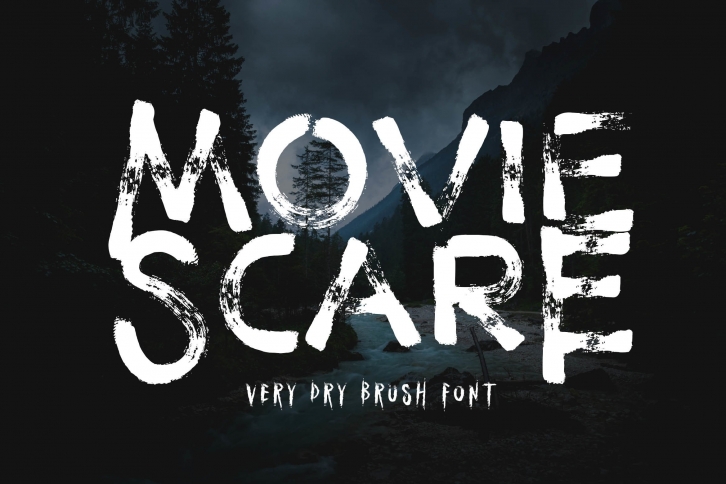
Movie Scare is a cool and horror looking display font. It is ideal for creepy designs like Halloween or movie posters. Add it confidently to your creations and let yourself be amazed by the outcome generated.Â